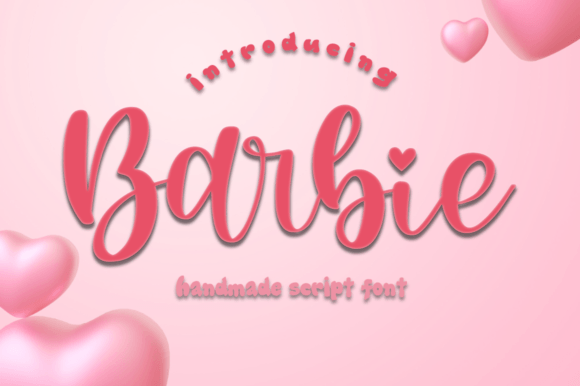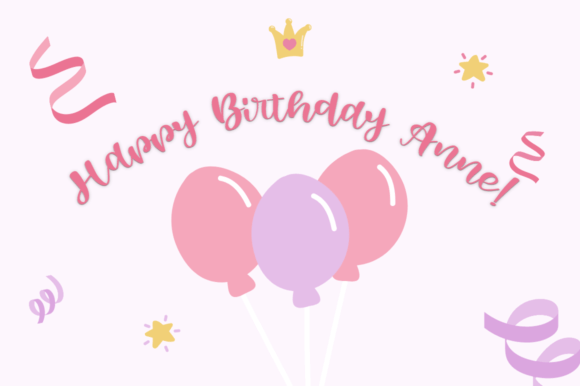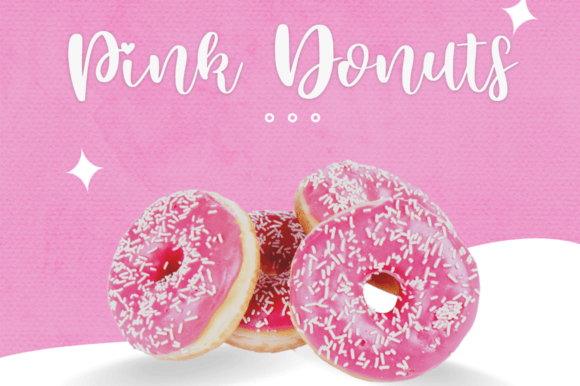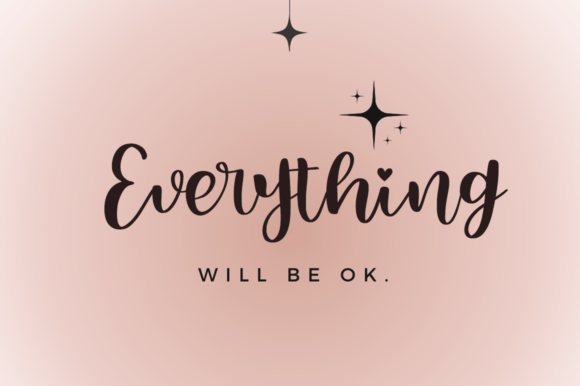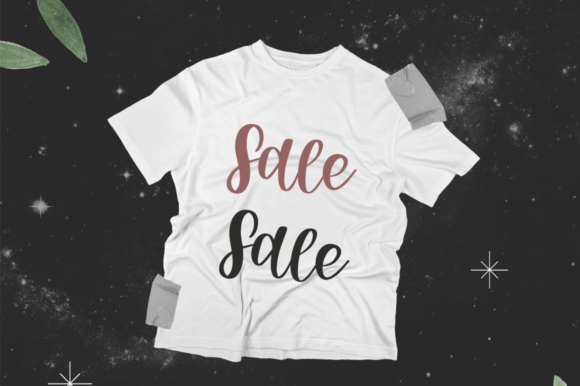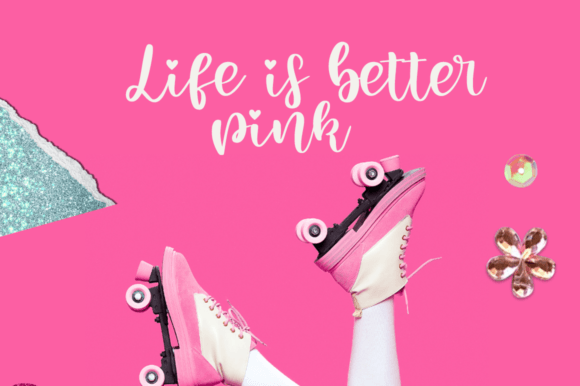
The Power of Personal Touch: Unveiling the Barbie Font
Have you ever found yourself staring at a beautifully designed logo or invitation, wondering what makes it so captivating? For many of us, it’s the subtle yet striking details that elevate a design from mere functionality to a work of art. For designers, this is a constant pursuit – to create something that not only conveys the intended message but also speaks to the viewer on an emotional level.
Enter the Barbie Font, a modern calligraphy design that embodies the perfect blend of elegance and approachability. This versatile font is not just for beauty queens or fashionistas, but for anyone looking to add a personal touch to their branding, packaging, or even wedding invitations. The value of the Barbie Font lies in its ability to evoke emotions and create a lasting impression, making it an invaluable asset for designers seeking to leave a mark.
Barbie Font Key Features
- Unique Characteristics: The Barbie Font features a distinctive, playful, and cursive style with rounded edges and smooth connections between letters.
- Font Weight: The font comes in multiple weights, including light, regular, bold, and extra bold, allowing designers to choose the perfect weight for their project.
Barbie Font Review
Overall, I was intrigued by the idea of a font inspired by the iconic Barbie doll. Let’s dive into what works well and what doesn’t.
- Cute and playful feel: The Barbie Font is perfect for projects that need a touch of whimsy and femininity.
- Unique character set: The font includes a range of characters, including punctuation and numbers, that match the Barbie aesthetic.
- High-quality design: The font is well-designed and looks great at various font sizes.
- Limited versatility: While the font is great for feminine projects, it may not be suitable for more serious or formal designs.
- No bold or italic styles: The font only comes in regular weight, which can limit its use in certain situations.
- Potential for overuse: The Barbie Font is so cute and attention-grabbing that it may be overused in certain projects.
The Barbie Font is a fun and creative addition to any designer’s toolkit. While it may have some limitations, it’s perfect for projects that need a touch of playfulness and femininity. Just be sure to use it judiciously to avoid overuse.
The Barbie Font is perfect for creating feminine and playful designs, such as:
– Birthday invitations
– Kids’ party materials
– Fashion and beauty branding
– Educational materials for young girls.
Getting the Most Out of the Barbie Font
To get the most out of the Barbie Font, use it in conjunction with pastel colors and floral patterns to create a whimsical and dreamy design. Experiment with different font sizes and styles to add emphasis and create visual interest.
Alternatives to “Barbie Font” for Designers
The “Barbie Font” is a playful, cursive font often used in children’s designs and feminine-themed projects. However, designers may want to explore other alternatives for their projects. Here are a few options:
Pacifico is a beautiful, modern script font that is perfect for creating a luxurious and elegant feel in your designs. It is ideal for use in wedding invitations, branding, and other high-end projects. Compared to the “Barbie Font,” Pacifico is more sophisticated and refined.